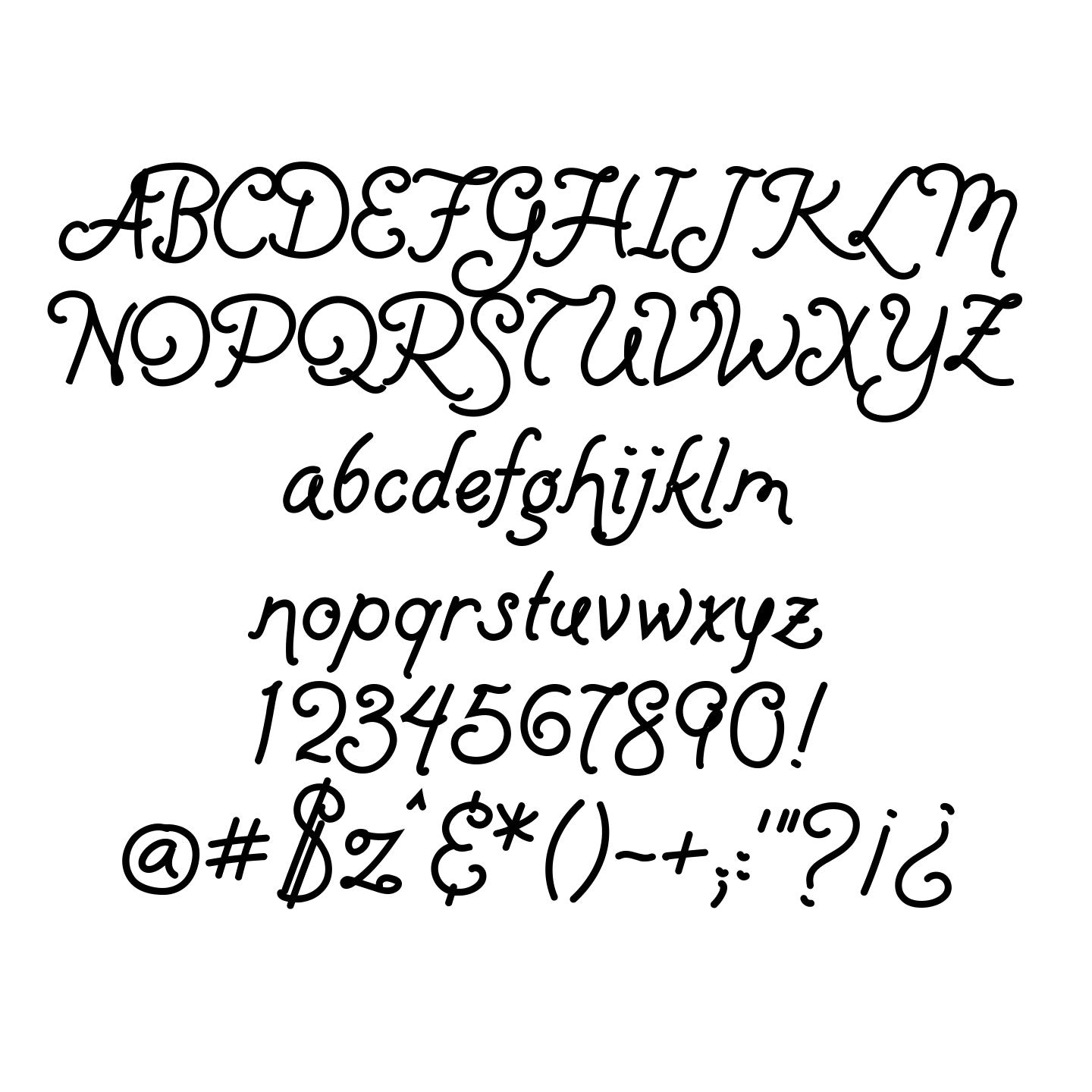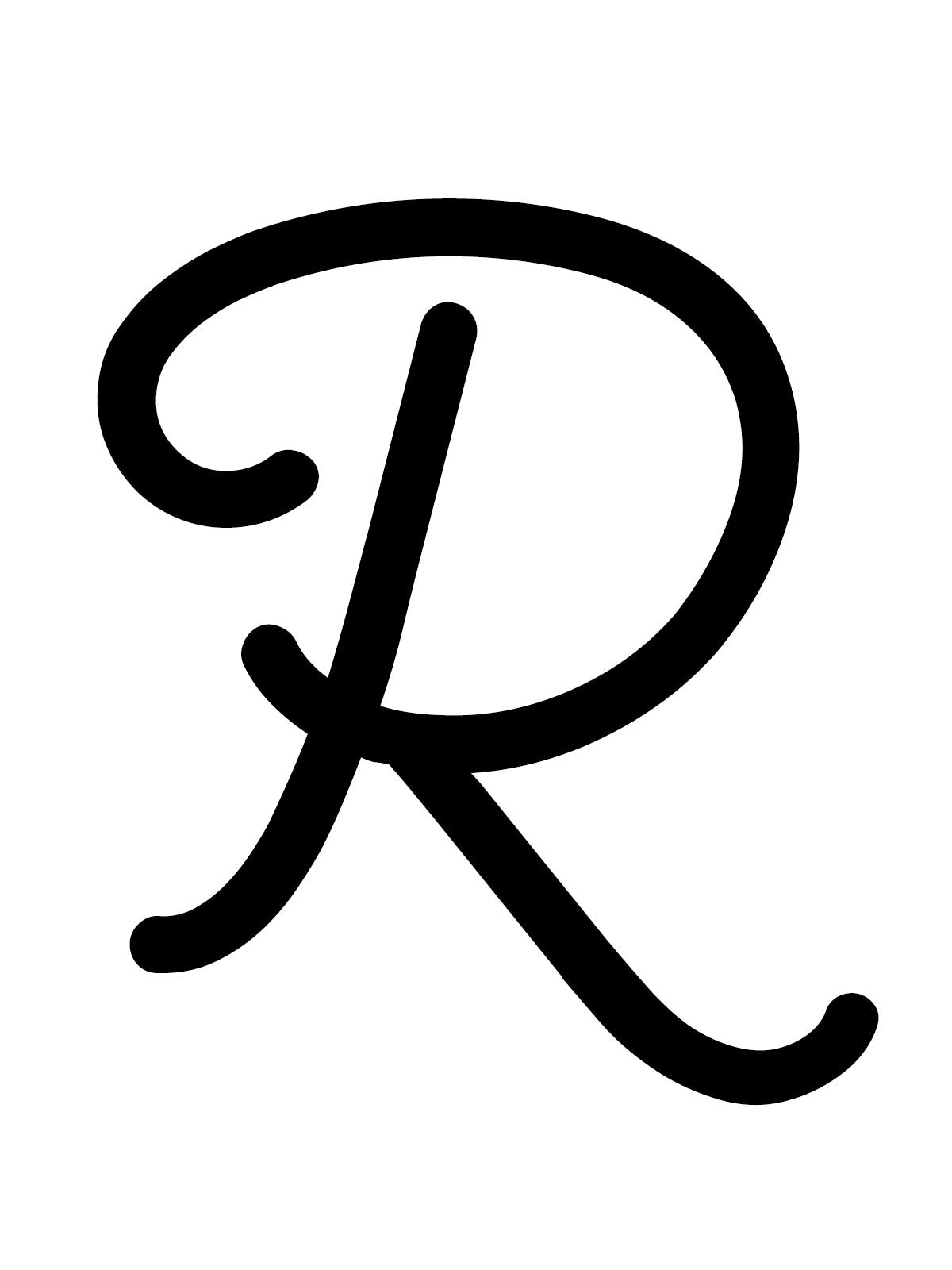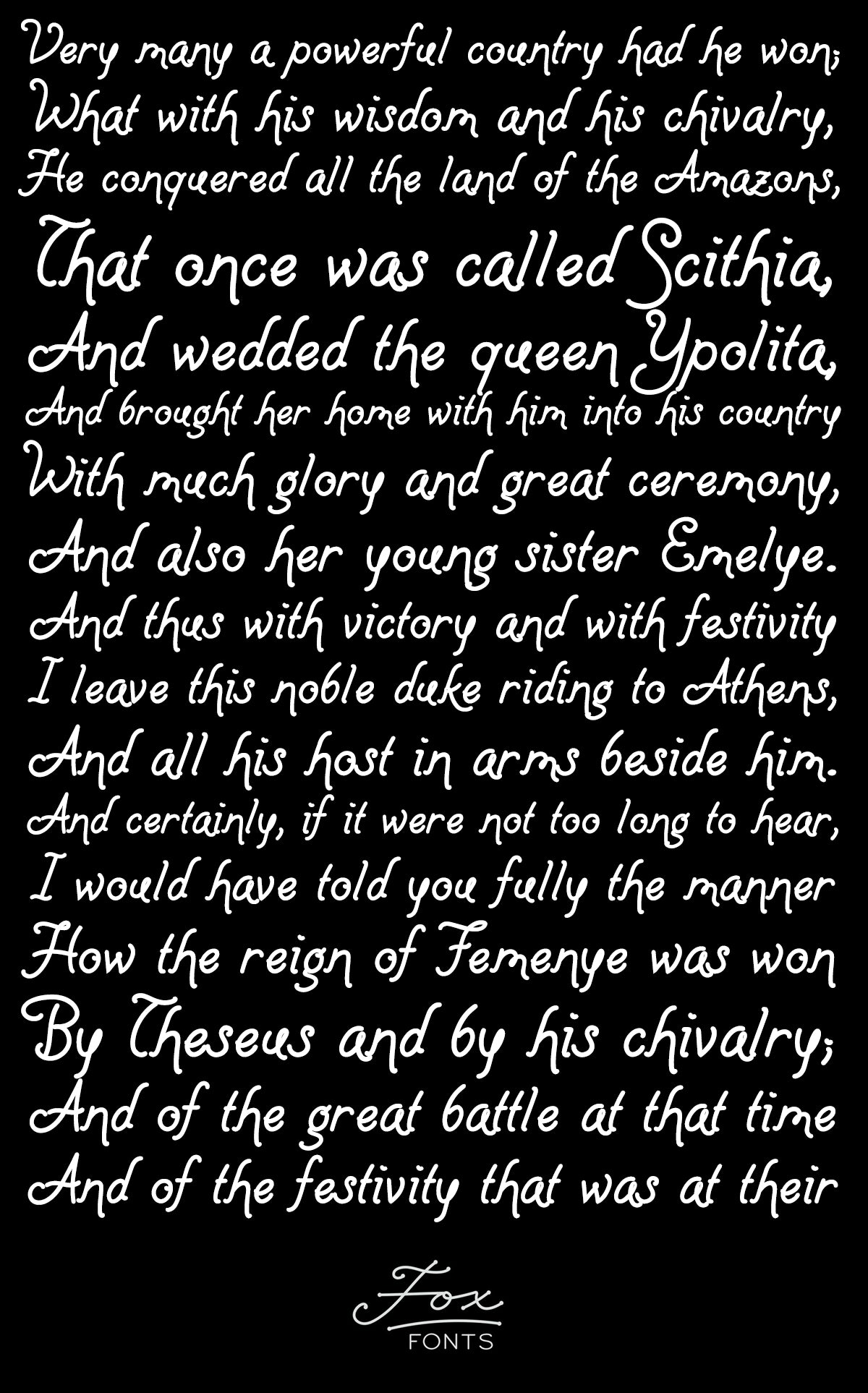
Gingha
The Gingha family (Regular, Bold) is a casual script inspired by a found grocery list written in felt tip pen. Who writes like this, especially these days? (The answer is: At least one person in Van Nuys, California.)